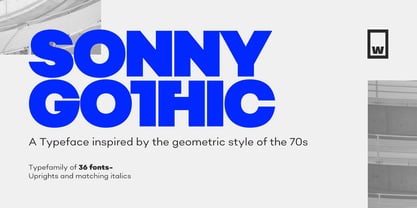
Sonny Gothic Font
Sonny Gothic Font is perfect for various design applications including modern corporate branding, clean architectural signage, contemporary tech company materials, professional service identities, minimalist product packaging, urban design projects, sleek editorial layouts, progressive website interfaces, modern institutional communications, and sophisticated business presentations. This versatile typeface excels in projects requiring contemporary professionalism and clean aesthetic appeal that communicates reliability, innovation, and modern design sensibilities.
What makes Sonny Gothic Font so exciting is its perfect synthesis of traditional gothic strength with contemporary design refinement through letterforms that achieve optimal balance between authority and approachability. The font features clean geometric construction that ensures exceptional clarity, carefully optimized spacing that enhances readability across all sizes, and subtle character refinements that add personality without compromising professionalism. Its distinctive modern character and professional versatility make it ideal for organizations seeking typography that communicates competence, trustworthiness, and contemporary design awareness.
Sonny Gothic Font family includes multiple weights from light to bold, along with complementary styles that enhance its versatility for different professional applications. Each weight maintains the font's signature clean character while providing clear hierarchy options for complex business communications. The family also features extended character sets, professional ligatures, and carefully designed numerals that ensure optimal performance in both corporate and creative contexts.
Whether you're developing corporate identities, professional communications, or contemporary design projects, Sonny Gothic Font Free Download provides reliable typography that establishes credibility while maintaining modern appeal. This typeface transforms routine business communications into polished presentations that reflect professional competence and design sophistication. The font's versatile nature makes it particularly effective for professional services, technology companies, and organizations that value both functionality and contemporary aesthetic appeal.
Sonny Gothic Font stands out through its intelligent approach to modern gothic design that achieves maximum functionality without sacrificing character or contemporary relevance. Its precisely calibrated proportions and clean details ensure exceptional performance across all professional applications, while its approachable character builds trust and accessibility. From comprehensive corporate systems to detailed professional communications, this font provides designers with tools to create communications that celebrate modern professionalism and demonstrate sophisticated understanding of contemporary business typography through clean, reliable design solutions.